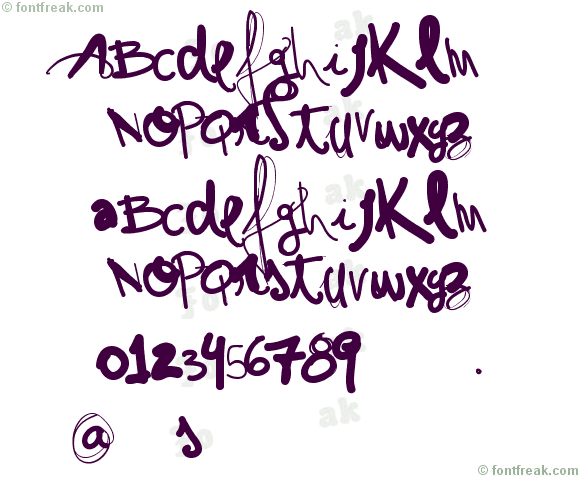
vtks show
The vtks show font, designed by Douglas Vitkauskas, is a captivating display typeface that exudes a playful and artistic flair. This unique font falls into the category of decorative typefaces, characterized by its whimsical strokes and fluid forms. The vtks show font features a bold yet slightly irregular stroke weight, which adds a touch of dynamism and character to any text. The letters are spaced thoughtfully to enhance readability while maintaining a fun, free-flowing aesthetic. The design incorporates decorative elements that evoke a sense of creativity, making it perfect for various applications.
This font is particularly well-suited for use cases such as wedding invitations, where its charming style can add a personal touch, or movie posters, where it can capture attention and convey a sense of excitement. Additionally, the vtks show font works beautifully for restaurant menus, giving a unique flair to the culinary offerings, or for children’s book covers, where its playful nature can resonate with young readers. Graphic designers, small business owners, and content creators will find this font an excellent choice for projects that require a touch of creativity and individuality.
What truly sets the vtks show font apart is its ability to convey personality through typography. Its distinctive design brings a sense of joy and creativity to any project, making it an excellent choice for those looking to make their work stand out. With the vtks show font free download available, designers and creators can easily incorporate this charming typeface into their projects, ensuring that their designs not only communicate effectively but also engage and delight their audience. Whether for professional or personal use, this font is sure to inspire and elevate any visual presentation.